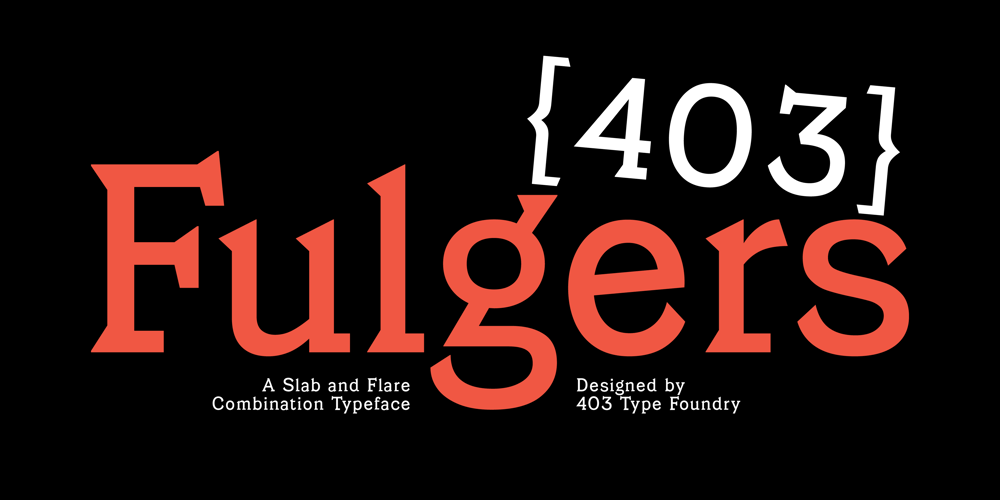
403 Fulgers Font Family was designed by Umar Al Farouq, Jodi El Ghazi, Febri Riansah and published by 403TF. 403 Fulgers contains 2 styles and family package options. Presenting 403 Fulgers, a creative typeface that masterfully combines the dynamic flair of current design with the timeless appeal of slab serifs. This experimental typeface has a distinctive look that makes it stand out in any project and radiates old modern vibes. Its broad ligatures and multilingual support, together with its more than 500 glyphs, ensure variety and originality in your typographic pursuits. 403 Fulgers, which come in two different types and one weight, are ideal for anyone wishing to add a little of modern edge and classic beauty to their work.